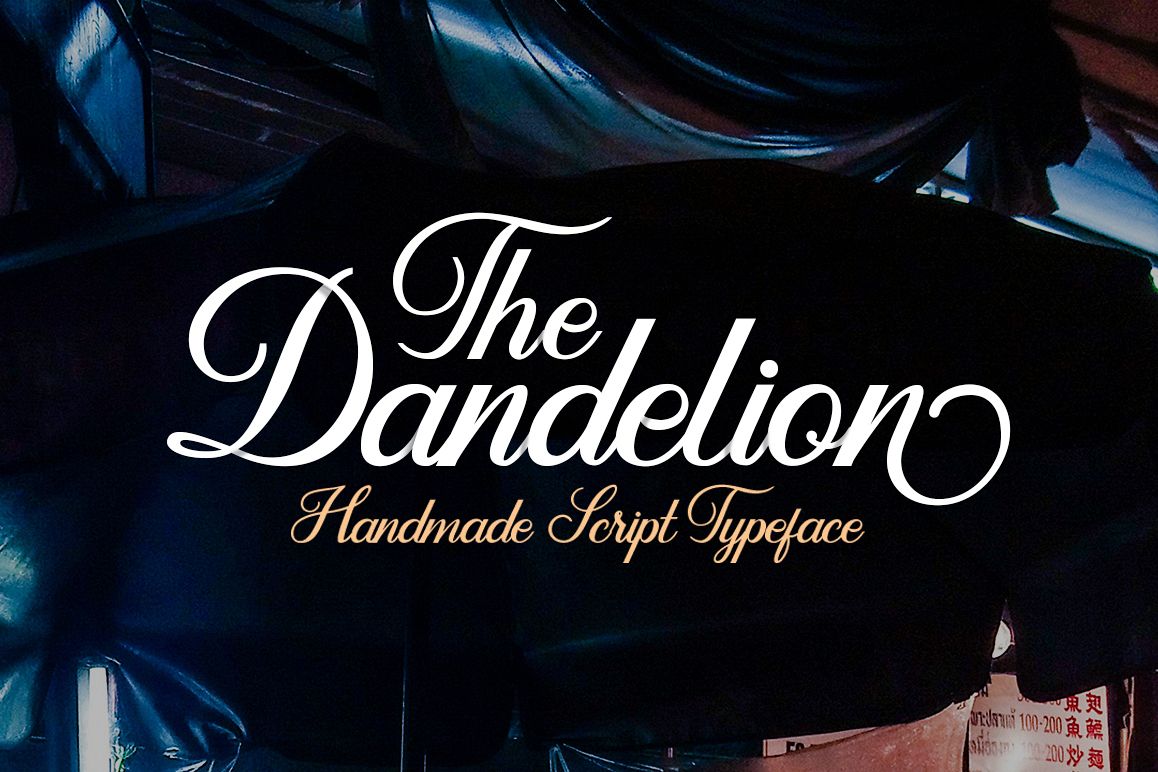
Dandelion Script
Introducing
Dandelion script a beautiful handlettering script font with a elegant letters it's allow you to make beautifull hand-lettering typography easily. This font comes with upper and lowercase characters, large set of punctuation glyphs, numerals, and supports international languages. Dandelion font is perfect to use for Logo, Branding, Apparel Design, Instagram Quote, Printable Quote, Poster, Mural, and etc.